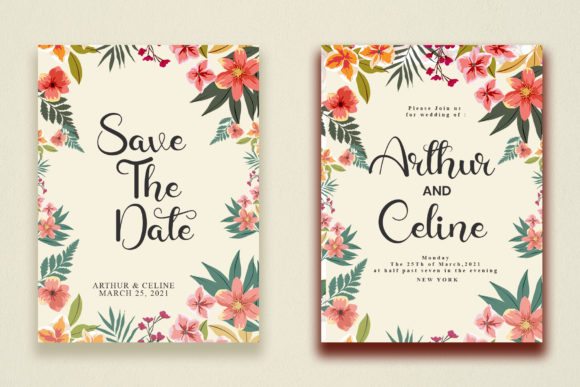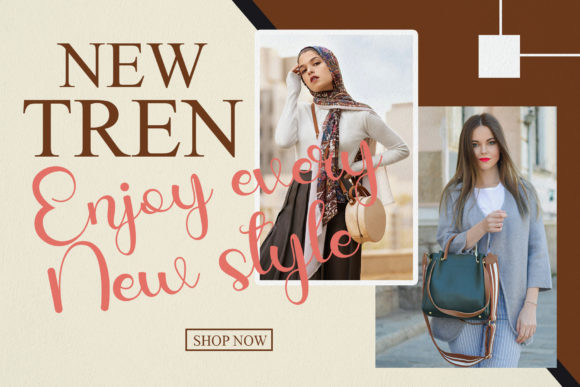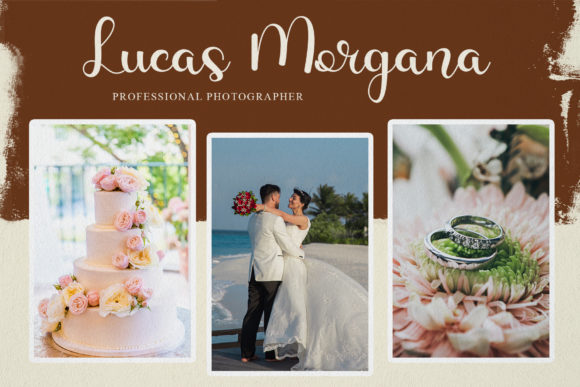
About Latansha Font
Latansha is a romantic and sweet calligraphy typeface with characters that dance along the baseline. This font is PUA encoded which means you can access all of the glyphs and swashes with ease!